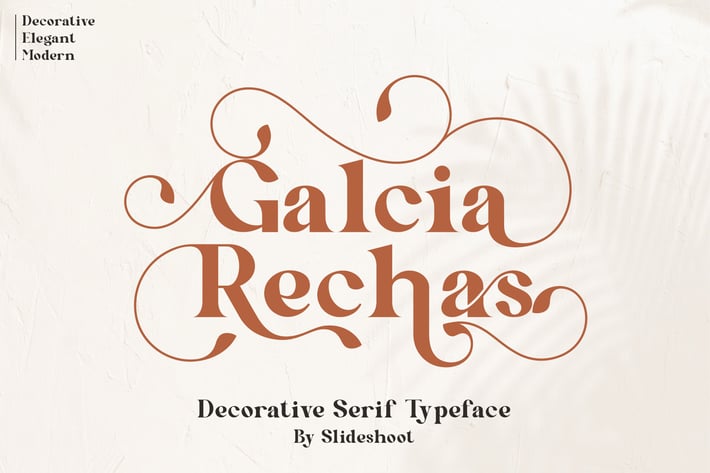
Galcia Rechas - Decorative Serif Font
Galcia Rechas Serif is a balanced, smooth, elegant and stylish serif font. He has character and beautiful ornaments. Very suitable to be combined with invitation card designs, company logos, film titles, film names, business cards, book titles, brand names and various other designs. Galcia Rechas Serif is a smooth serif font that exudes sophistication and elegance. Its stylish alternation and binding make this font the perfect partner for any project.